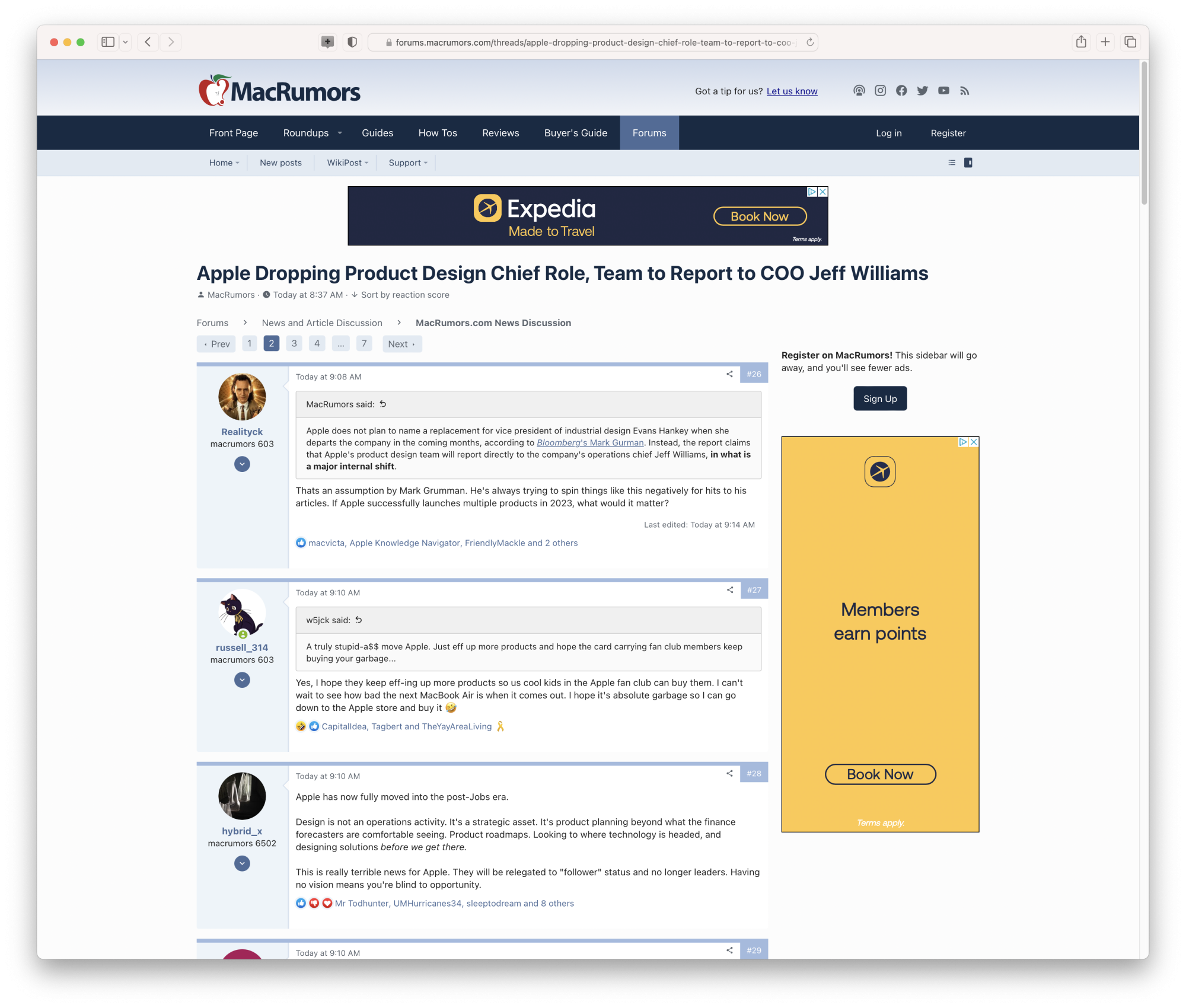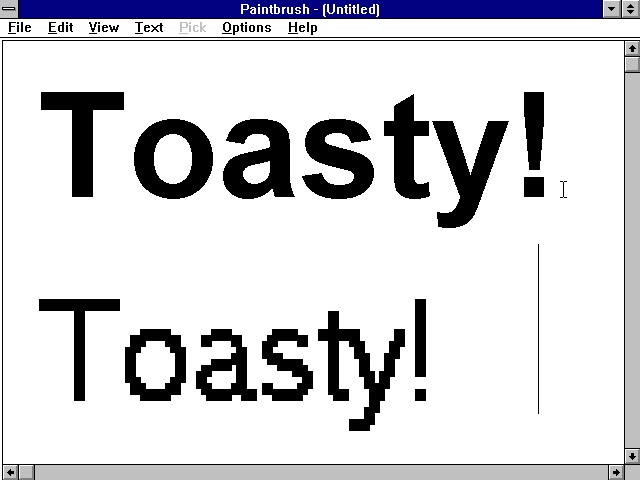
@arn Reviving the topic of this thread from 2015, isn't it about time that a Mac-focused site mostly visited by Mac users used... Apple fonts, instead of Microsoft's Verdana?
The really easy way to do this is to replace all those 'Verdana, Arial' declarations in the style sheet with this bulletproof system font stack:
font-family: -apple-system, BlinkMacSystemFont, 'avenir next', 'avenir', 'segoe ui', 'helvetica neue', 'helvetica', 'Cantarell', 'Ubuntu', 'roboto', 'noto', 'arial', sans-serif;
This will ensure that whatever device or OS the visitor is using, they'll see the content in their default system font. For Mac users, this means San Francisco on newer versions of macOS / iOS / iPadOS etc.
This also allows for more typographic richness, because current system fonts like San Francisco, Segoe UI, Ubuntu and
Roboto have many more weights and variations, but to take advantage of that, it would require a deeper rework of the CSS and general typographic design used on the site.
(Quick screenshot below, done by tweaking the CSS in DevTools)
Hopefully any refresh is a functional one rather than a trendy one. Verdana is 10x more readable than that Helvetica/San Francisco garbage Apple is obsessed with. Myriad Pro in particular looks good, is pretty readable IMO, and is iconic as an Apple font. Also, the worst visual website trends these days are the ones that look like Twitter and the Wikipedia refresh, and Macrumors probably has more dignity than that...
I'm not saying Verdana's a bad typeface, but remember that it, like Arial, was created for Microsoft Windows, and did not intrinsically have scalability or anti-aliasing in mind. Most computer fonts at the time displayed using bitmapped "screen fonts", separate from printing fonts, and it wasn't until TrueType (and later, OpenType) that system font rendering used vector fonts.
(Mac OS X inherited NeXTStep's PDF-based screen rendering engine, so it was PostScript-based from the beginning.)
A lot of the typographical issues in Arial (and there are many) stem from the fact that it was specifically commissioned to be a fallback for Helvetica so that cross-platform documents would display without the layout shifting due to different font metrics. (Type designer Mark Simonson has a whole article about this.)
San Francisco was introduced nine years ago, in 2014; Myriad was introduced around 2003, then eased out and finally completely dropped in 2017. I mean, YMMV, but to me Myriad now looks dated.
For practical reasons - conveying information on small screens - a tighter, vertical sans-serif like SF Pro uses less space. (See also: Google's Roboto, and the Swiss typeface that inspired both of them, Univers)
Myriad has a lot of angled strokes which make letterforms occupy more space horizontally. Notably, Apple never used
Myriad in any UI elements, only in branding, which leads to a discontinuity between the product experience and the packaging, and that seems very un-Apple-like when you think about it. 🙂
Updated logo concept I knocked out. Just a quick sketch, but this could be something used at larger sizes, and turned into an "MR" signet for icon sizes.